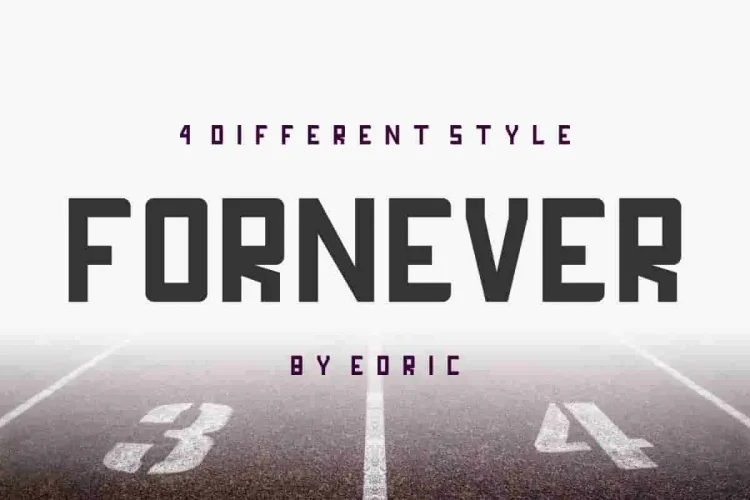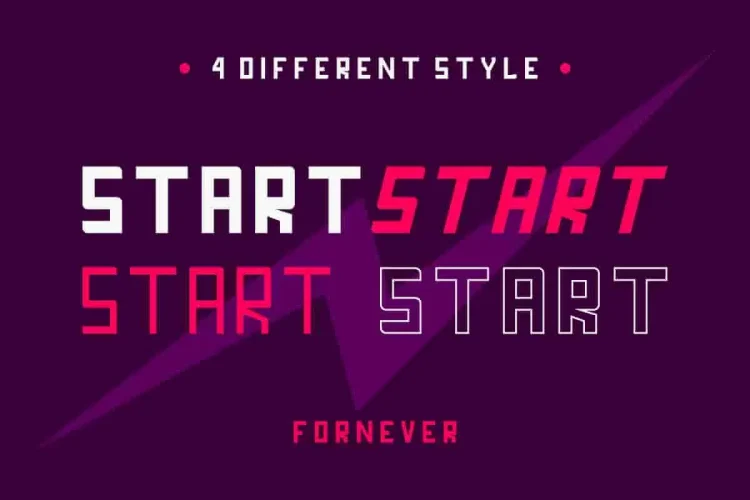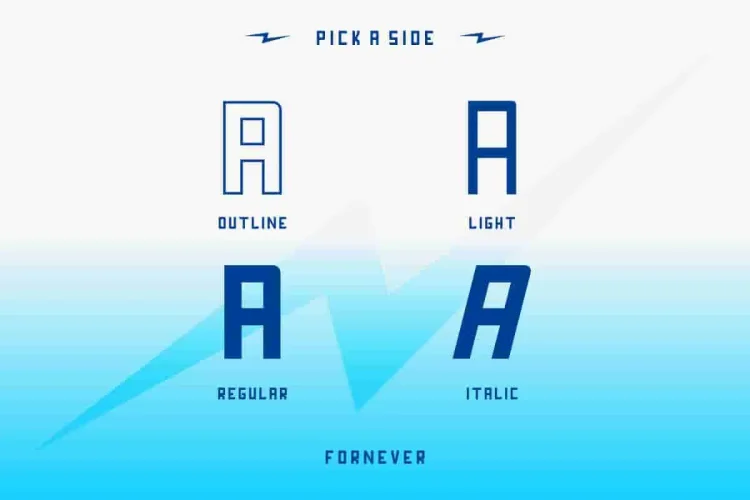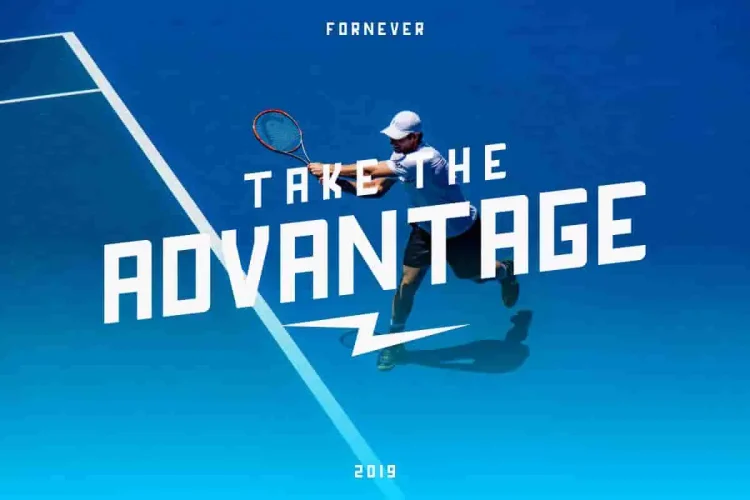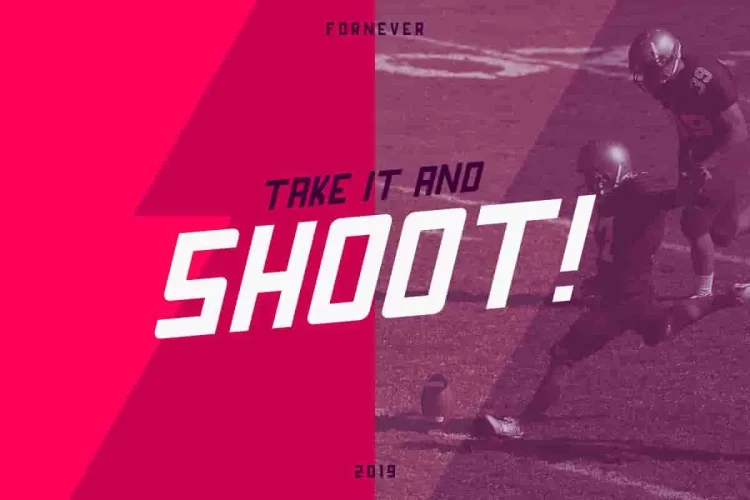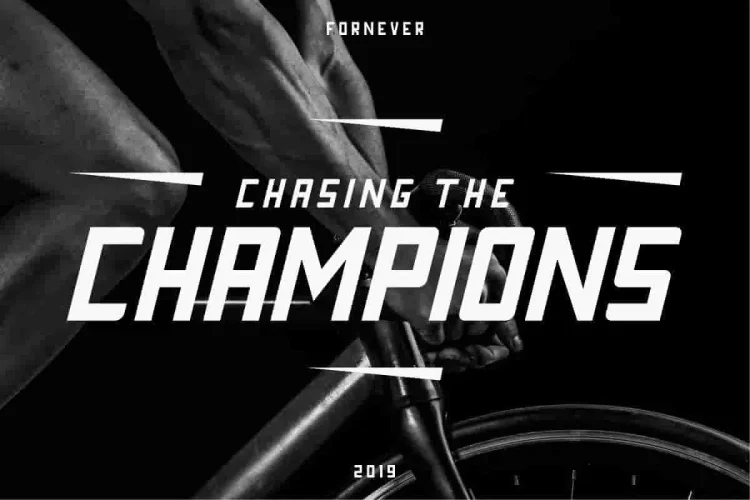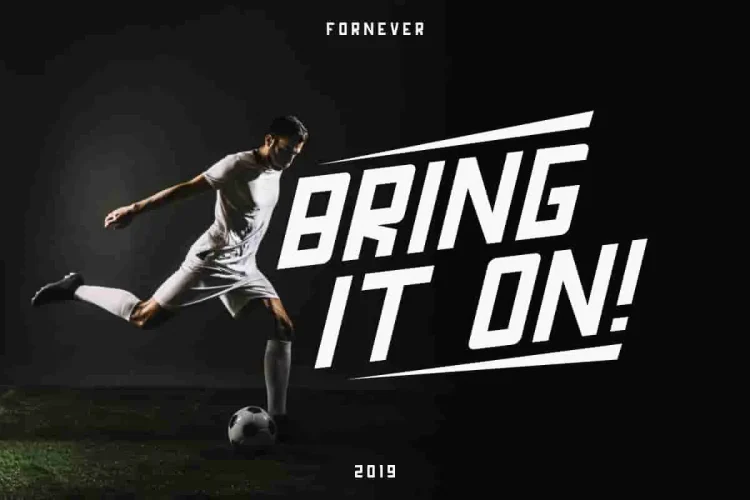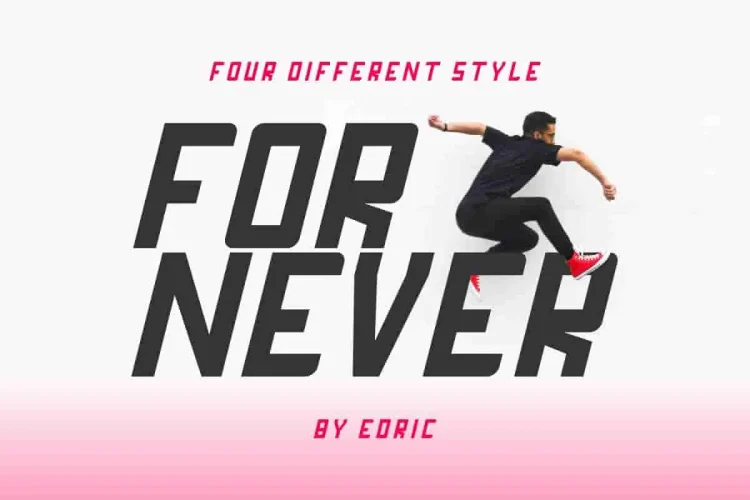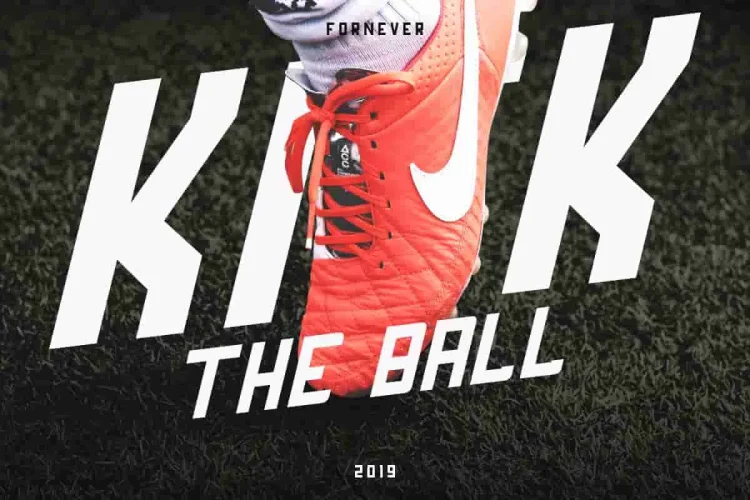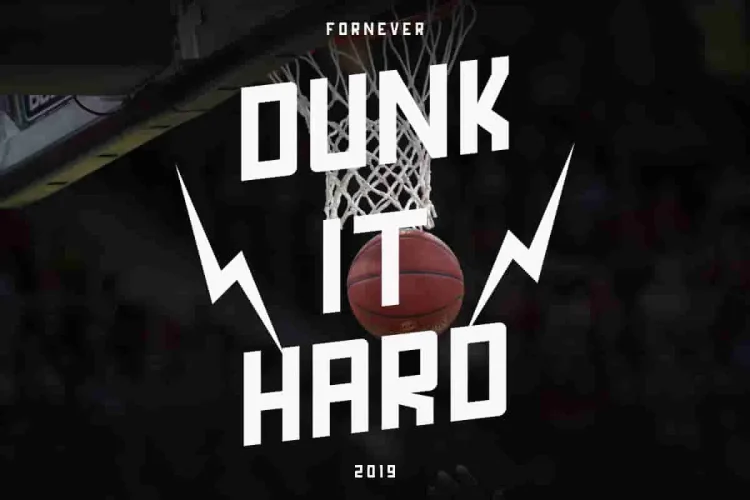
Fornever Sans Serif Display Font
Hi Everyone! We’re excited to introduce our newest typeface: FORNEVER ! It comes with FOUR styles: Regular, Italic, Stroke and Light. It’s a sans serif font family.
🔍 Explore Each Style’s Strength:
• Regular – Bold, confident, and strong. This core style is perfect for headlines, branding, or anything that needs high visibility and solid structure.
• Italic – Dynamic and fast-moving. With its forward-slanted design, Italic adds a sense of motion and intensity, ideal for sports posters, product packaging, or campaigns that aim to inspire action.
• Outline – Sleek and futuristic. This deconstructed version of the Regular style gives your work a techy, sci-fi edge. Great for UI titles, event promos, or youth-centric branding.
• Light – Minimal and clean. A more subtle alternative that’s ideal for supporting text, modern layouts, or brands that prefer sophistication with a punch.
Beyond its individual style traits, Fornever shines in real-world applications. From posters and logos to flyers, signage, brochures, and beyond — this typeface fits a variety of modern design needs.
But Fornever isn’t just about surface-level aesthetics. It’s more than just good looks. In fact, its design is rooted in versatility and function. This is a new modern sporty stylish sans display family font. It has a fresh, elegant, unique and stylish glyph.
🔍 Why Choose FORNEVER?
• 4 Distinct Styles in 1 Pack – From bold Regular to sleek Italic, sharp Outline, and minimalist Light, FORNEVER gives you total creative freedom in one cohesive font family.
• Strong Visual Identity – Designed with angular cuts, tall proportions, and aerodynamic shapes, FORNEVER is made for brands with energy — ideal for sports, technology, education, or music-related designs.
• Striking Modern Appeal – The structured yet futuristic design adds a sense of momentum to any layout, perfect for logos, posters, headlines, signage, packaging, and more.
There are many industries that is suitable for this font : sport, science, school, education, construction, real estate, services, law firm. In summary, Fornever is designed to empower your creative process.
So whether you want bold impact or a futuristic tone, FORNEVER gives you the flexibility to adapt while staying consistent in personality.